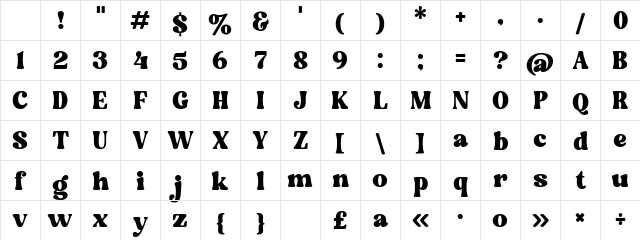
Matolha is a composed and adaptable typeface that performs quietly and consistently across a wide range of design contexts.
Pro Tip: Use Matolha in both headline and body roles to test its range before committing to a single application.